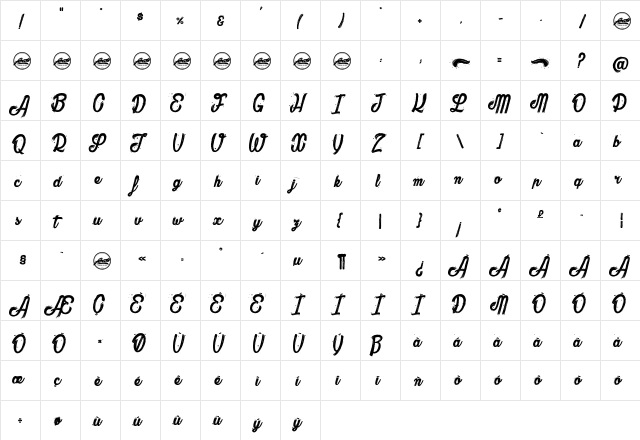
The Bully_PersonalUseOnly Regular
| Foundry | dcoxy Medina Gregory |
| Designer | dcoxy Medina Gregory |
Design Context for The Bully_PersonalUseOnly Typeface
The Bully_PersonalUseOnly is a composed and adaptable typeface that performs quietly and consistently across a wide range of design contexts.